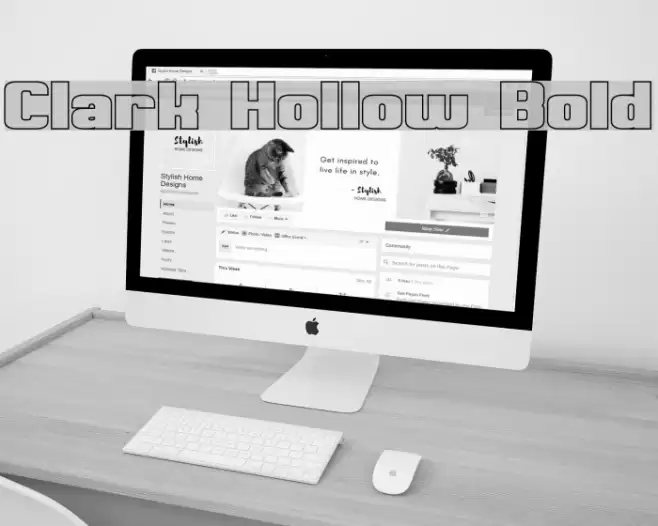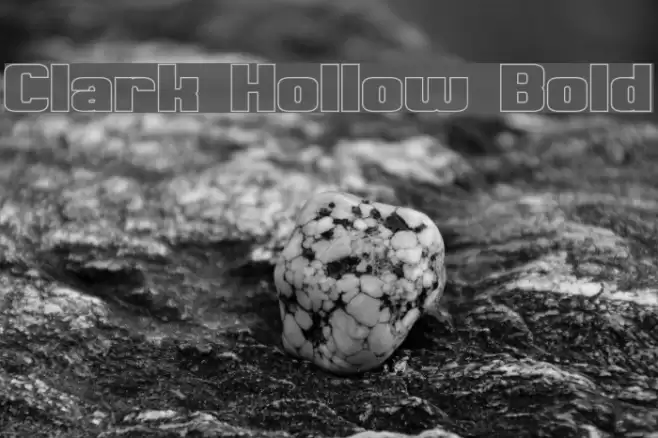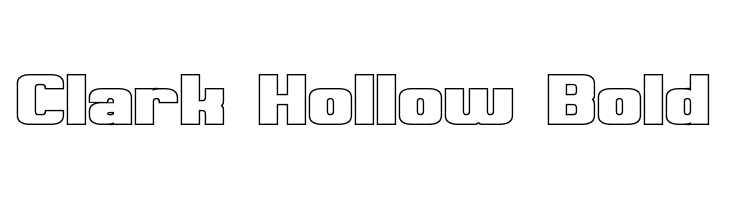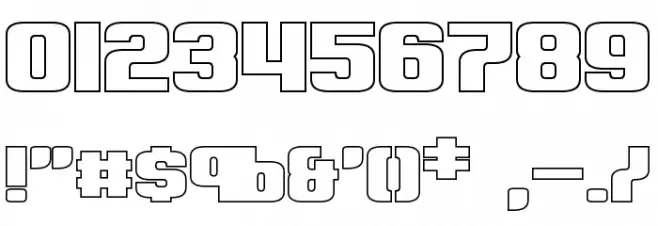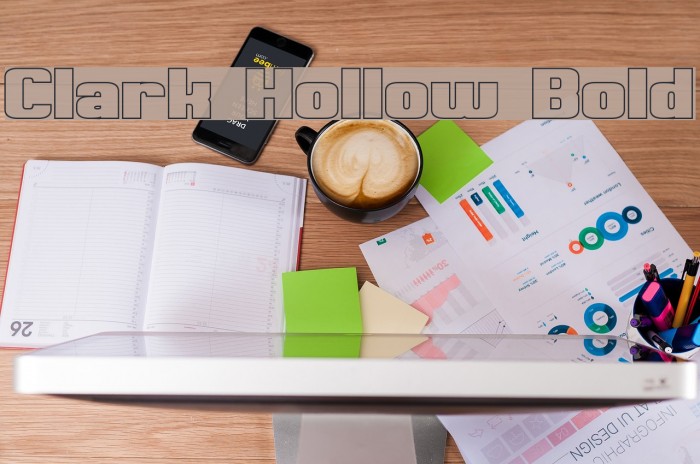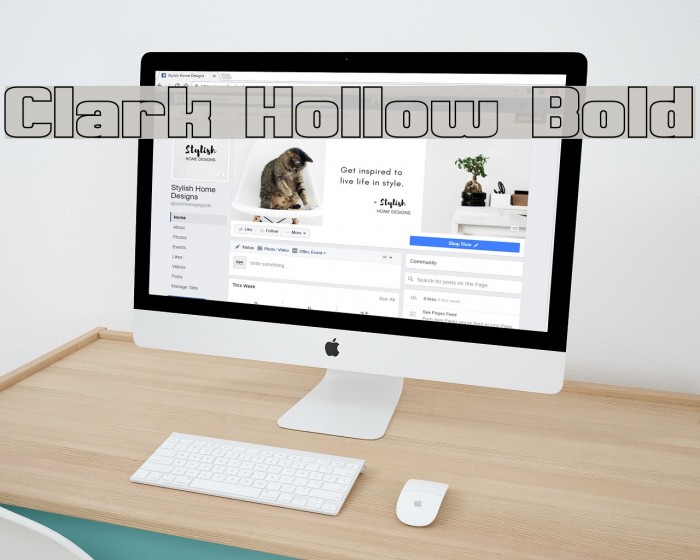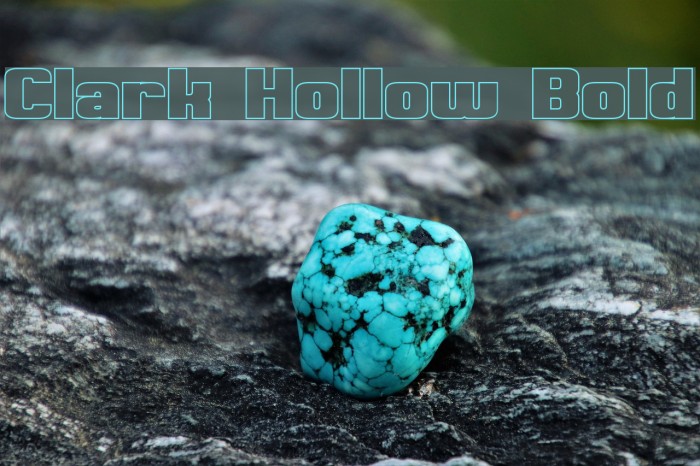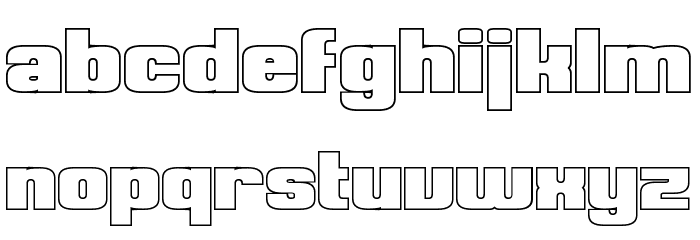
Clark Hollow Bold Font
Clark Hollow Bold Description
This font features a bold, hollow design with a geometric and structured appearance. The uppercase and lowercase letters maintain a consistent width, creating a uniform look across the typeface. The characters are outlined, giving them a distinctive hollow effect that adds depth and dimension. The numerals and special characters follow the same design principles, ensuring a cohesive style throughout. This font's boldness and unique hollow style make it stand out, ideal for projects that require a strong visual impact.
A bold, hollow, geometric font with a uniform and structured appearance from Uncategorized fonts.
- Proposed Projects: Ideal for posters, headlines, logos, and branding materials that require a bold and eye-catching design.